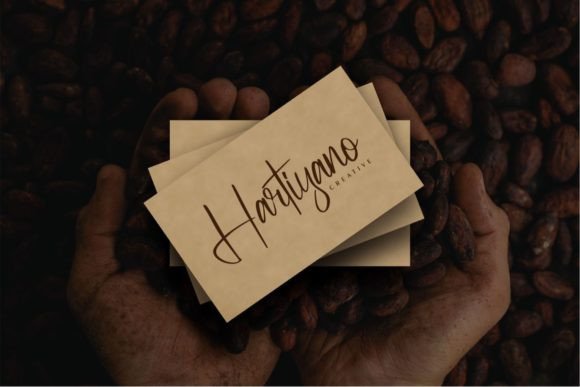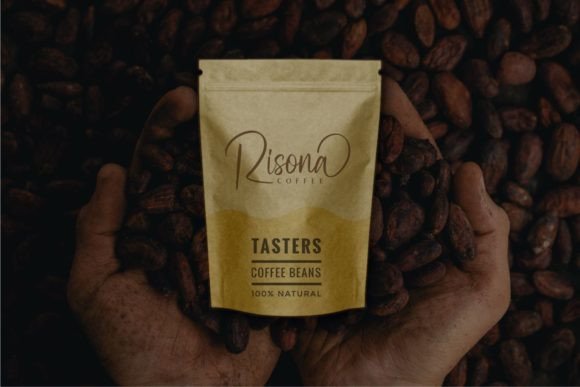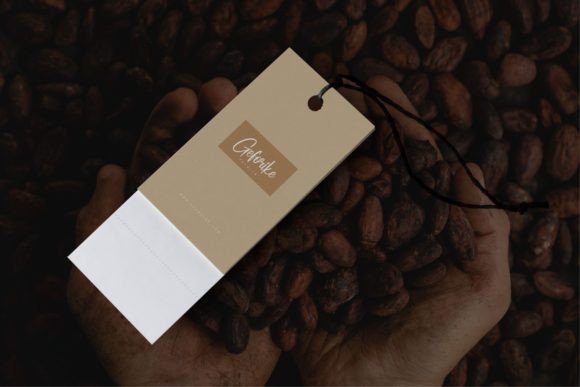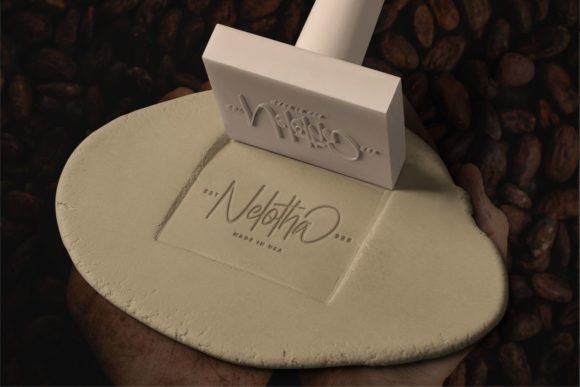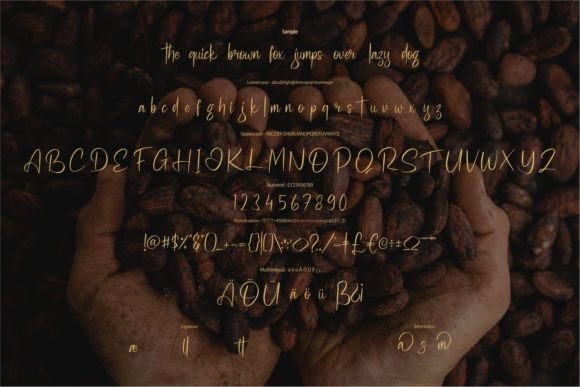
Introducing Angosega Font: Elevate Your Creativity with Elegance
Are you a designer, crafter, or DIY enthusiast looking for a font that can add a touch of magic to your creative projects? Look no further than Angosega Font, a beautifully crafted script font that combines elegance with a whimsical flair. In this article, we’ll dive into the world of Angosega Font, exploring its features, uses, and benefits for designers and crafters alike.
What is Angosega Font?
Angosega Font is a carefully curated script font that boasts a unique blend of sophistication and playfulness. With its flowing lines, intricate details, and artistic flair, this font is perfect for anyone seeking to add a touch of elegance to their creative projects. Whether you’re working on a logo, social media graphics, or DIY crafts, Angosega Font is sure to impress.
Key Features of Angosega Font
- Elegant Script Style: Angosega Font features a beautiful, cursive script style that’s perfect for creating eye-catching graphics and designs.
- Magical Touch: With its whimsical flair and artistic details, this font adds a touch of magic to any creative project.
- Versatile: Angosega Font is suitable for a wide range of applications, from Instagram graphics to calligraphy scripts, and more.
Uses of Angosega Font
Angosega Font is an incredibly versatile font that can be used in a variety of creative projects, including:
- Instagram Graphics: Add a touch of elegance to your Instagram posts and stories with Angosega Font.
- Calligraphy Scripts: Use Angosega Font to create beautiful calligraphy scripts for DIY projects, such as wedding invitations, greeting cards, and more.
- Logo Design: Create stunning logos for your business or personal brand with Angosega Font.
- DIY Crafts: Add a personal touch to your DIY crafts, such as handmade cards, gift tags, and more, with Angosega Font.
Benefits of Using Angosega Font
So, why choose Angosega Font for your creative projects? Here are just a few benefits:
- Stand Out from the Crowd: With Angosega Font, you can create unique and eye-catching designs that set you apart from the competition.
- Elevate Your Brand: Angosega Font can help elevate your brand’s visual identity and create a lasting impression on your audience.
Tips for Using Angosega Font
To get the most out of Angosega Font, here are a few tips:
- Experiment with Colors: Try pairing Angosega Font with different colors to create unique and eye-catching designs.
- Play with Sizes: Experiment with different font sizes to add visual interest to your designs.
- Mix and Match: Combine Angosega Font with other fonts and graphics to create stunning designs.
Angosega Font is a magical script font that can elevate your creativity and add a touch of elegance to your designs. With its versatile uses, easy-to-use features, and benefits, this font is perfect for designers, crafters, and DIY enthusiasts alike. Whether you’re looking for fonts for Instagram or calligraphy scripts for DIY projects, Angosega Font is sure to turn your creative ideas into true pieces of art!